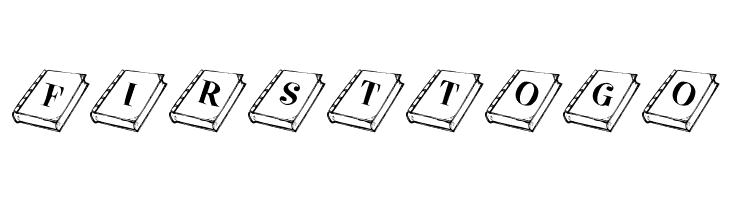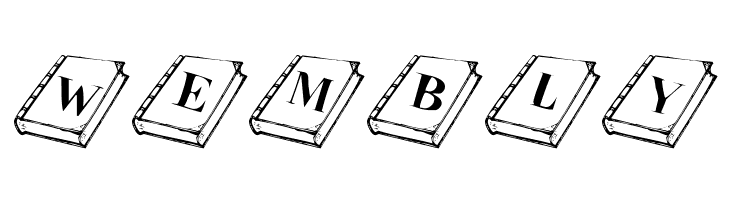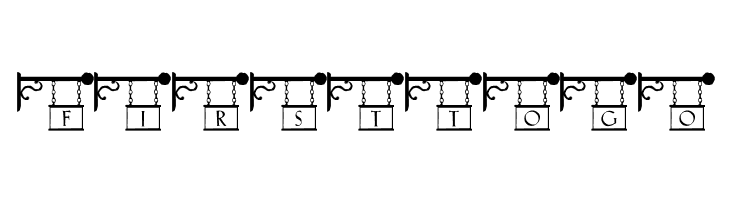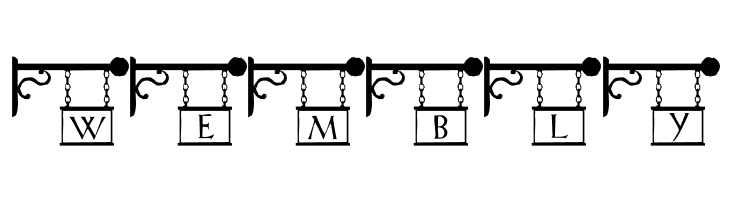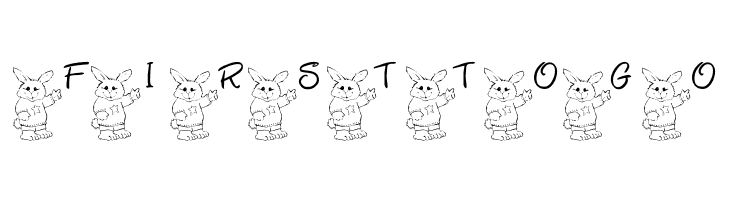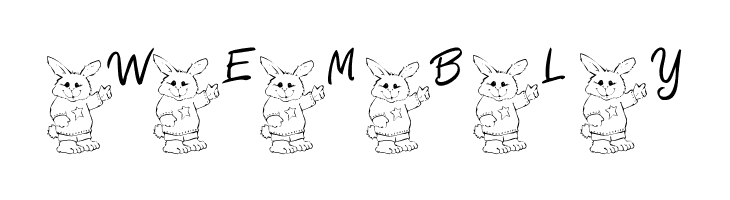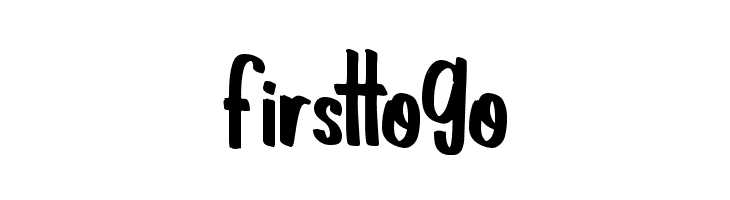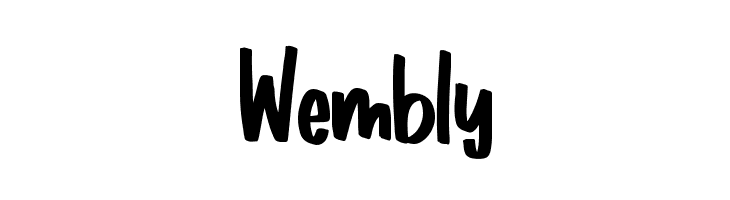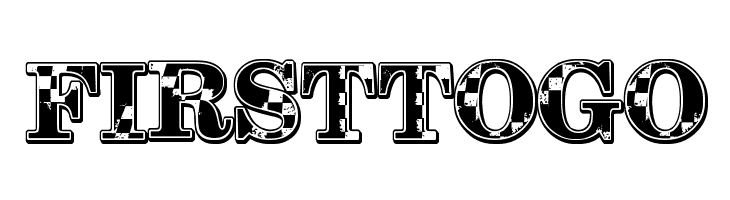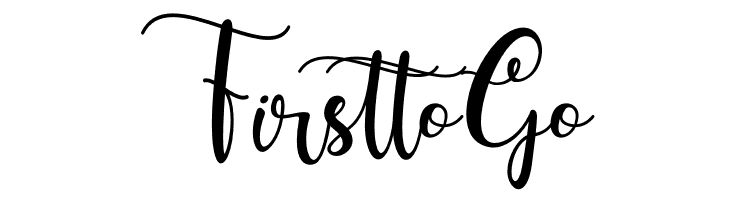
A playful, handwritten font with a casual and energetic style.
A flowing, cursive script font with elegant loops and swashes.
A bold, angular font with high contrast and geometric shapes, perfect for impactful designs.
A modern, geometric sans-serif font with a condensed width and uniform stroke.
A bold, decorative font with a distressed, vintage texture and checkered pattern.
A playful, hand-drawn style font with bold, irregular strokes.
A bold, playful font with rounded edges and a hand-drawn feel.
A bold, retro-style font with rounded, slanted characters.
A bold, angular font with a futuristic and geometric style.
A playful, bold, and hand-drawn style font with a whimsical touch.
A decorative font with characters on 3D books, ideal for fantasy themes.
A decorative, vintage-style font with framed characters and ornate details.
A playful font with cartoon bunnies accompanying each character.